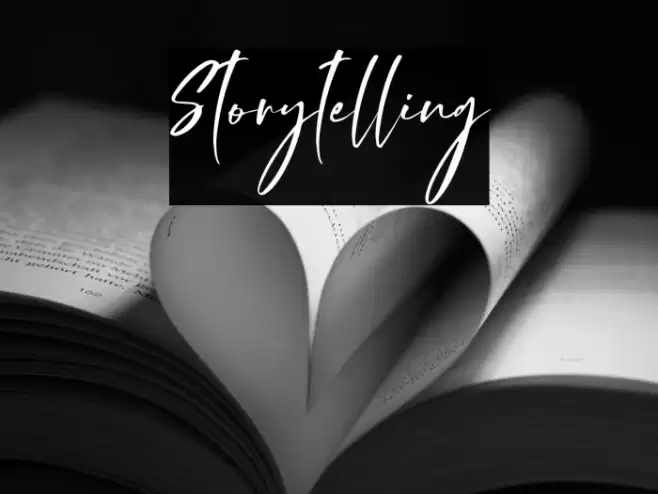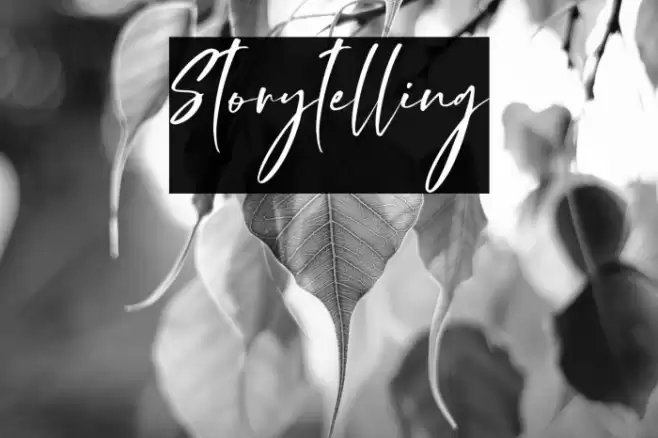
Storytelling Font
Storytelling Description
This font exudes a modern, handwritten style with a touch of elegance and fluidity. The characters are crafted with a natural flow, mimicking the strokes of a calligrapher's pen. The uppercase letters are bold and dynamic, while the lowercase letters maintain a graceful continuity. The font's design is characterized by its sweeping curves and varying line thickness, adding a sense of movement and personality. It's perfect for projects that require a personal and artistic touch, such as invitations, branding, and creative designs. The overall aesthetic is both sophisticated and approachable, making it versatile for various applications.
A modern, handwritten font with elegant, fluid strokes and dynamic character design from Regular fonts.
- Font: Storytelling
- Proposed Projects: Ideal for wedding invitations, personal branding, artistic projects, and creative design work.
- Use Case: Logos, Invitations, Creative designs